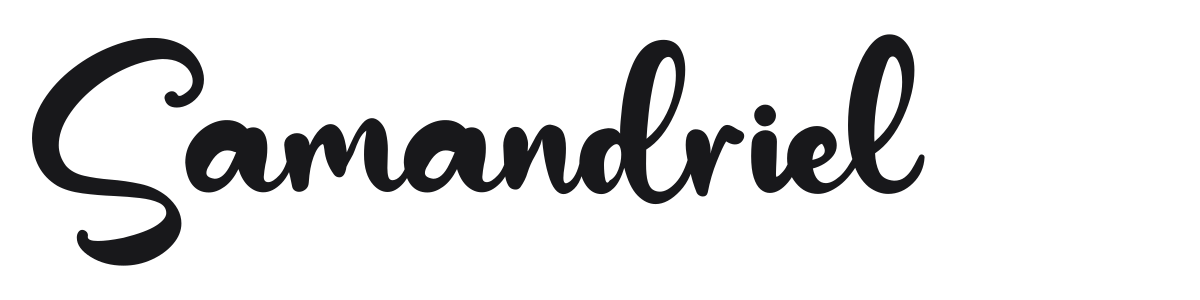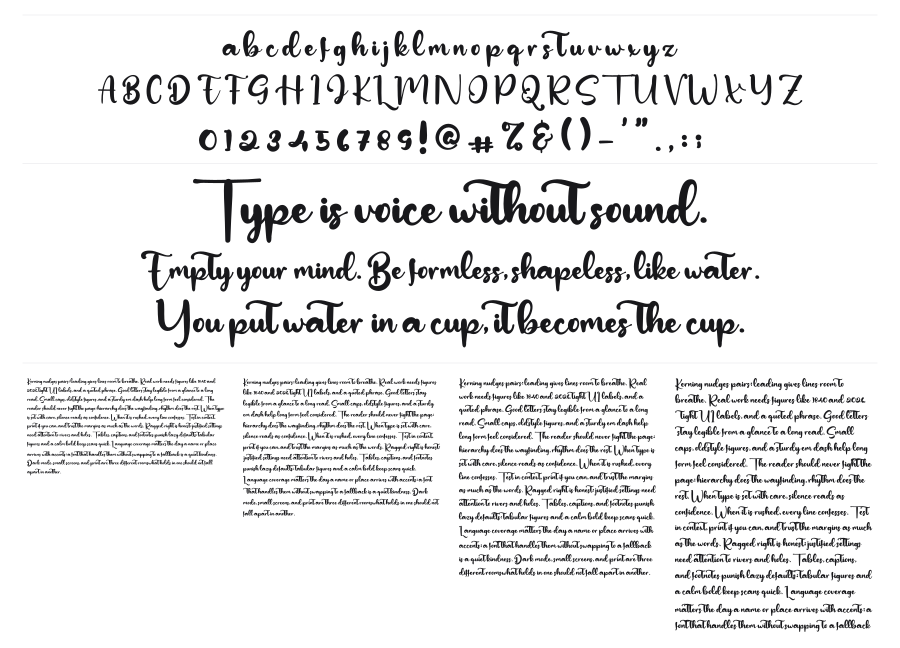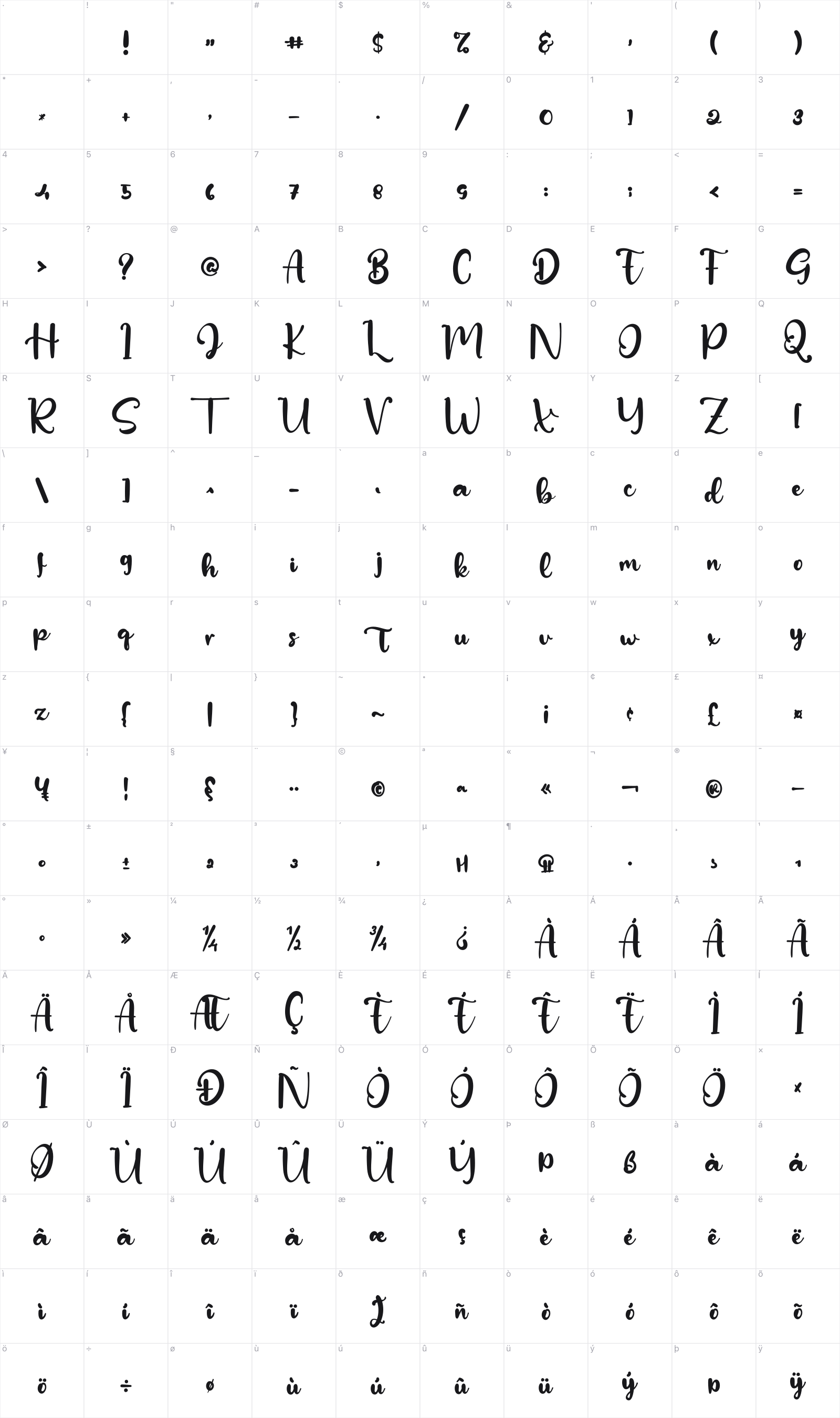
Samandriel
Samandriel is a bold casual script with lively bounce and strong thick-thin stroke contrast drawn from brush lettering traditions. The generous loops and swelling curves give it a handcrafted warmth that works naturally at large sizes. It suits branding and packaging where approachability and personality matter.